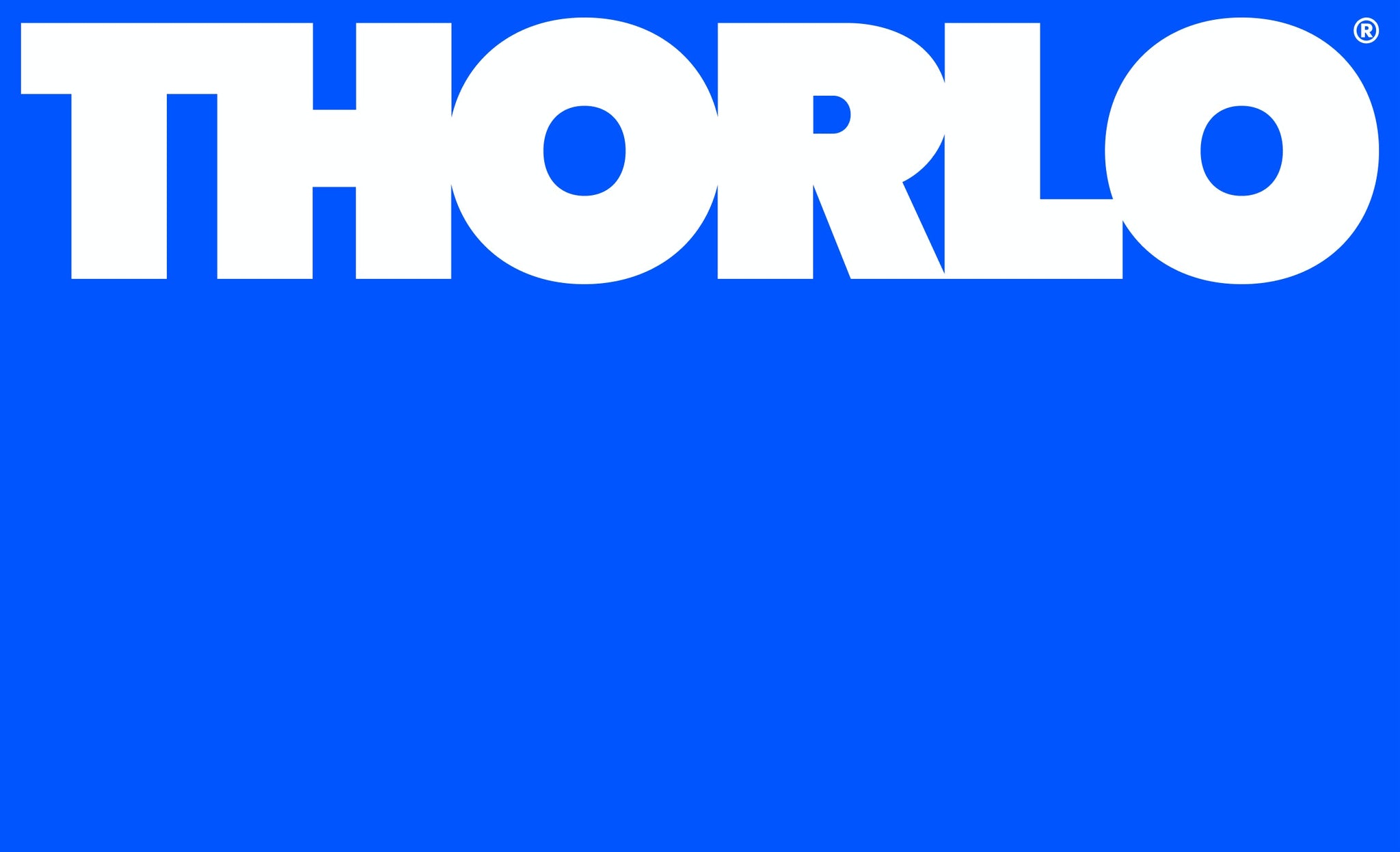
Thorlo, the brainchild of a small family mill in Statesville,North Carolina...
...has always believed in engineering socks for the way you move, but 40+ years on their legacy of ergonomic innovation was lost in the rush of the latest, new-to-market brands. High Tide partnered with Thorlo to reinvigorate the American sock brand and cement its rightful place as an icon today and for generations to come.
Together with the Thorlo team, we defined a bold new brand platform that centers on the innovation and movement Thorlo has always delivered but never owned until now - after all, they've been Moving you since 1980.
Early in the project, our team traveled to Thorlo's Mill in Statesville to help inform the strategy and design. We explored years of archival history, brand evolution, and moving stories, discovering that Thorlo's dedication to ergonomic engineering and design had changed lives – supporting movers of every kind, from sports professionals to everyday athletes.
Our visit inspired the notion that Thorlo was an engineering company that happens to make socks. This became the cornerstone of our strategy - to renew the Thorlo brand around its spirit of innovation and drive to create for whatever moves you. We made it our mission to translate Thorlo's purpose and product pride into a bold brand for the future. horlo's leap into the future began with their wordmark, which had seen many iterations. We designed a resolute and ownable mark inspired by Thorlo's origins while embodying the brand's strength. The weighting has been carefully crafted to feel balanced at every scale and be the unshakable confidence in a dynamic brand.
The wordmark became the foundation of an invigorated world for Thorlo - one full of bold color and a functional design system that clarifies and inspires every kind of mover. Supported by dynamic photography that's always in motion and archival imagery as a nod to their history, Thorlo's new look takes on an unmistakable identity in the otherwise mundane sock category.